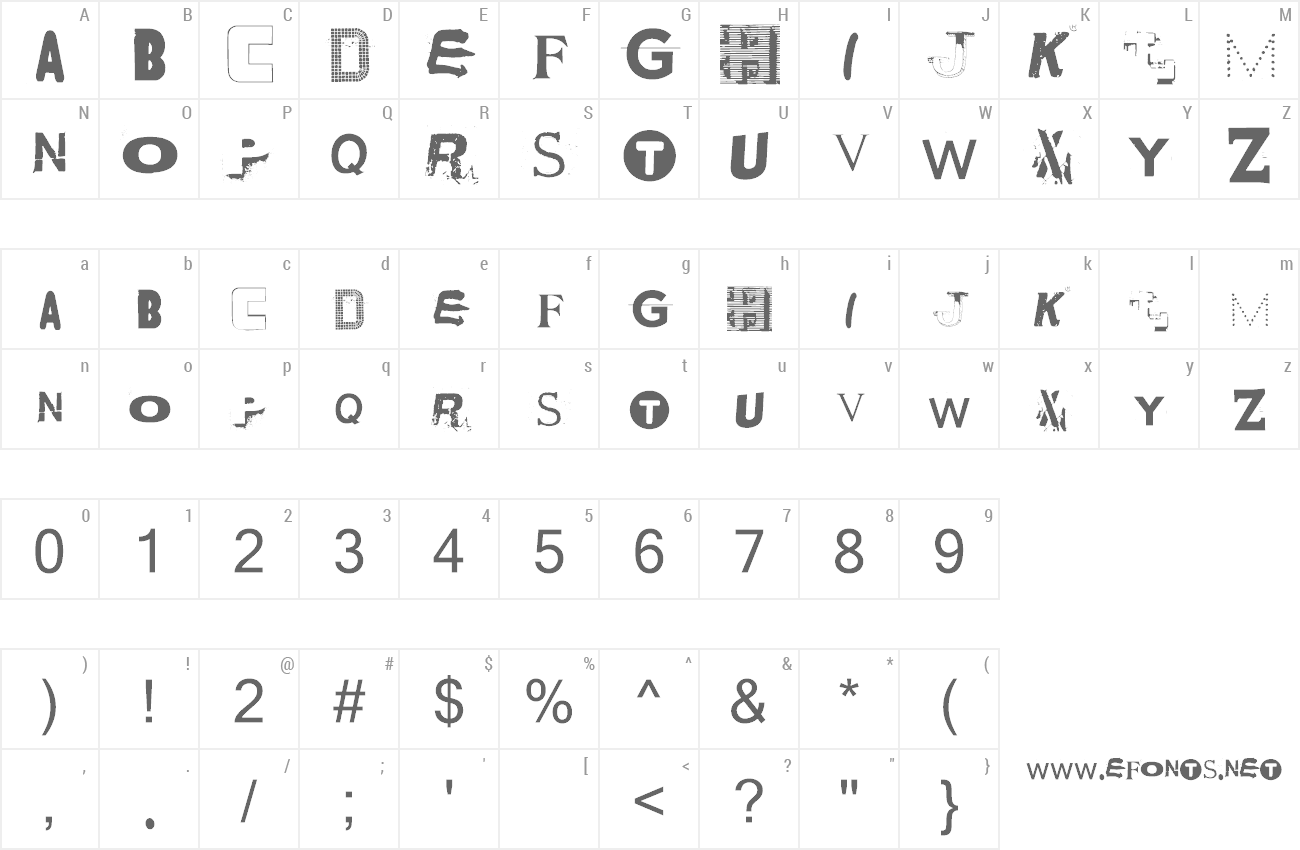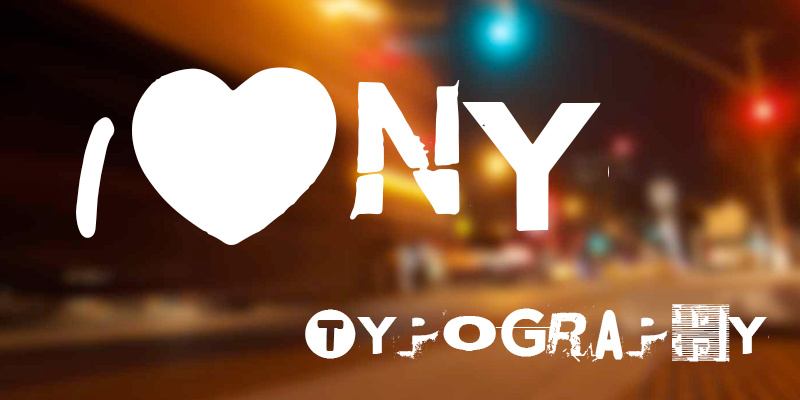
Preview and download NYC ABC Font. Created by Fontourist in Fancy Distorted styles with Donationware license.
| This font was made while visiting NY. A rough drop cap font. All letters were found walking the streets of the big apple. |